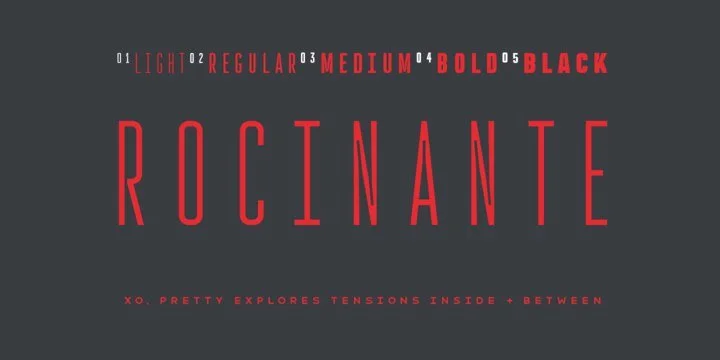
Rocinante Titling Font
Rocinante Titling Font is perfect for book titles, movie posters, theatrical productions, literary magazines, publishing house branding, academic publications, historical documentaries, classical music albums, museum exhibitions, art gallery signage, prestigious awards ceremonies, and sophisticated editorial headlines.
What makes Rocinante Titling Font exciting is its majestic presence that commands attention while embodying the grandeur and nobility of classical typography traditions. This distinguished typeface draws inspiration from the epic literary heritage, creating letterforms that convey authority, wisdom, and timeless elegance. The font's dramatic character and refined proportions make it perfect for projects that require gravitas and intellectual sophistication. Its powerful visual impact ensures that titles and headlines capture immediate attention while maintaining the dignified aesthetic appropriate for scholarly and cultural applications.
The Rocinante Titling Font family includes regular, medium, and bold weights, featuring classical alternates, elegant ligatures, and sophisticated ornamental elements. The character set incorporates traditional numerals, classical punctuation marks, and decorative flourishes that enhance the font's prestigious character and provide designers with comprehensive titling solutions.
Whether you're designing prestigious publications, creating cultural event materials, or developing academic communications, Rocinante Titling Font Free Download provides the authoritative presence your distinguished projects demand. This premium titling font excels in applications where intellectual credibility and classical elegance are essential for establishing proper tone and audience respect. The font's commanding presence works exceptionally well in large display applications while maintaining readability and dignity across various media. Publishing houses and cultural institutions choose this font for its ability to convey scholarly authority and literary prestige. The comprehensive character set supports multiple languages and includes specialized academic symbols, expanding its versatility for international scholarly publications. Professional designers appreciate its perfect balance of drama and readability, ensuring titles make powerful impressions without sacrificing clarity. When you select this exceptional titling font for your prestigious communications, you're choosing a typography solution that honors classical traditions while providing contemporary functionality, ensuring your scholarly and cultural projects communicate authority, sophistication, and intellectual excellence that resonates with educated audiences and maintains the highest standards of academic and literary presentation.